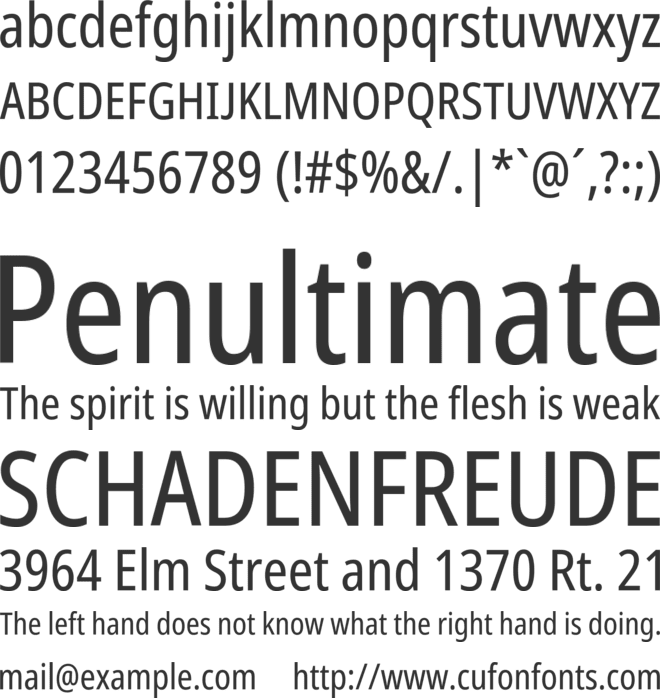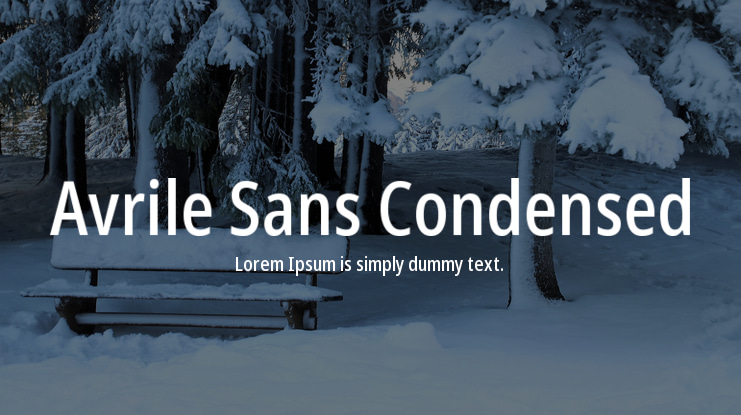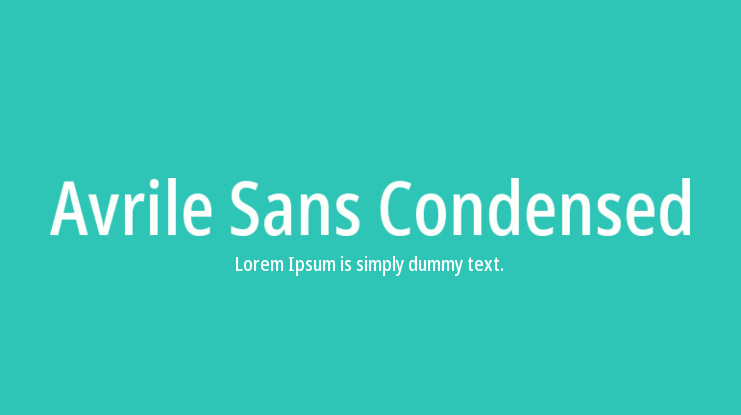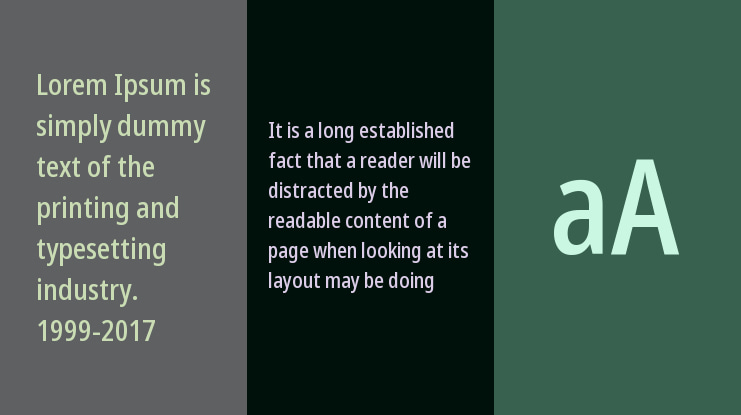
Avrile Sans Condensed Font Family
Monotype Design Team
Avrile Sans began as a fork of font Noto Sans Display. The modifications are a non-descending capital J and fixed styles across all 18 weights. This is the Condensed width.